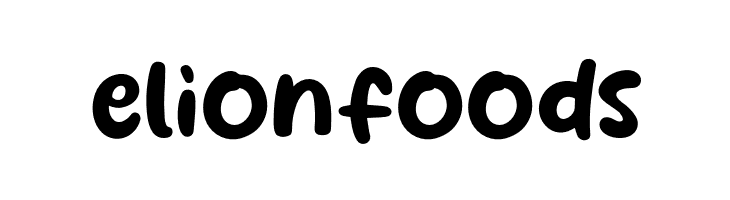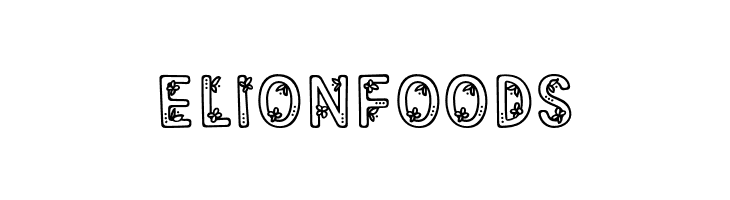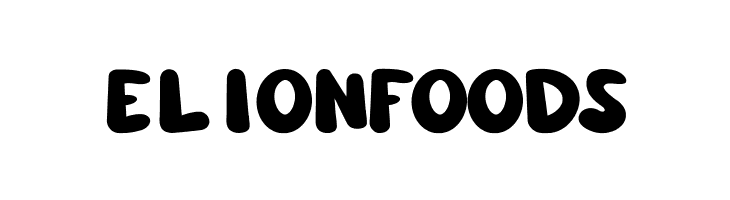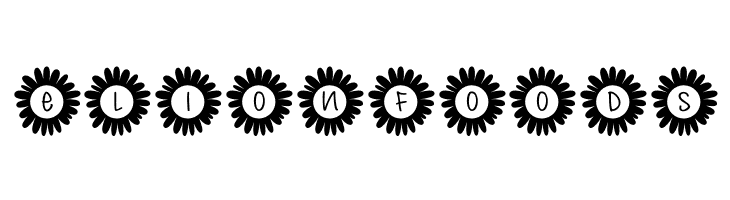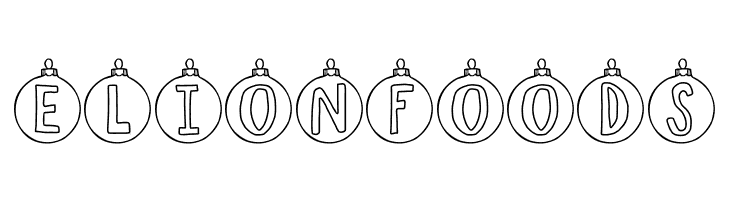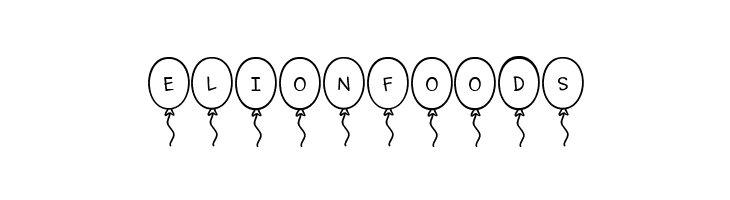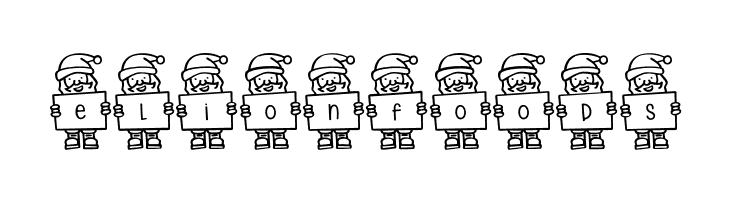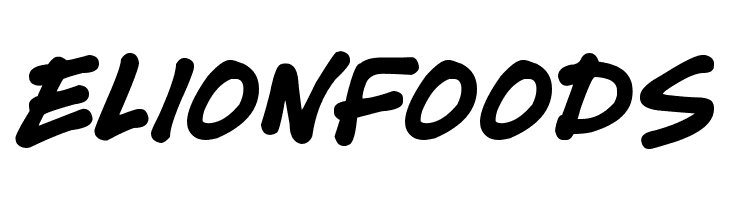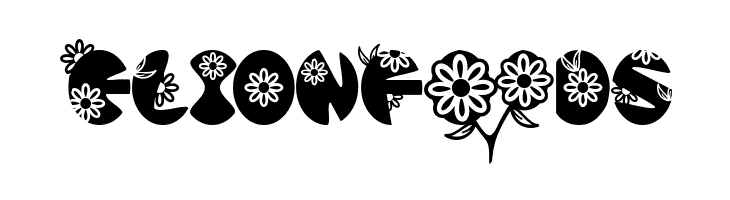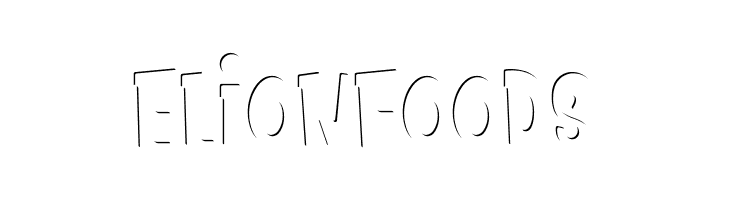
A playful, rounded font with bold, uniform strokes and a whimsical style.
A playful, floral-themed decorative font with whimsical elements.
A playful, bold font with rounded, hand-drawn characters perfect for festive designs.
A decorative font with characters encased in sunflower designs, offering a playful and whimsical style.
A festive, ornamental font with uppercase letters in decorative baubles.
A playful font with characters inside balloons, perfect for festive occasions.
A festive font with letters held by cartoon Santa figures, perfect for holiday themes.
A bold, playful script font with smooth, flowing curves.
A bold, decorative font with floral patterns for a whimsical, nature-inspired look.
A playful, hand-drawn font with quirky, irregular shapes and a whimsical style.